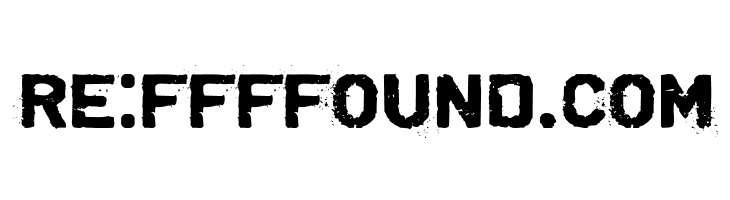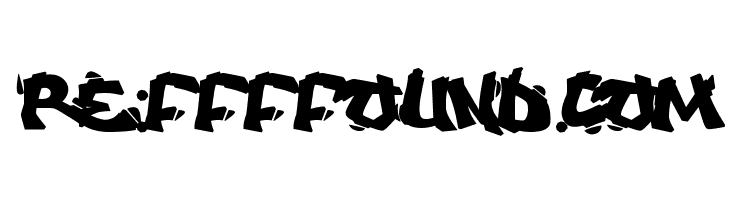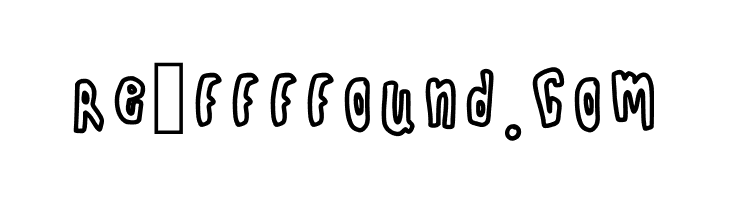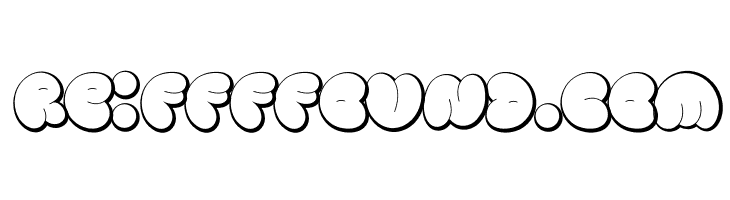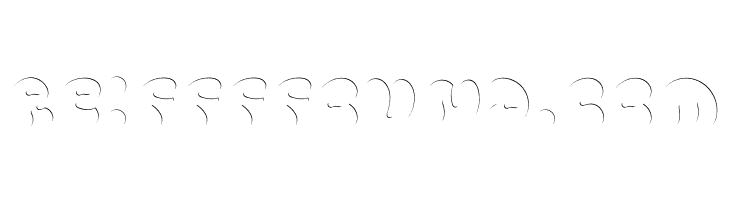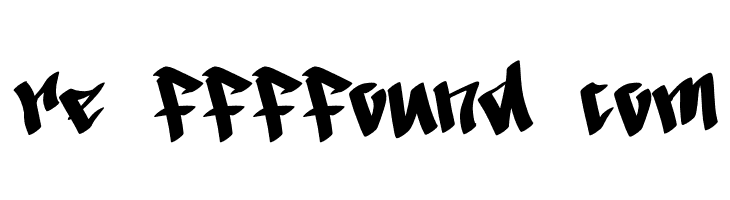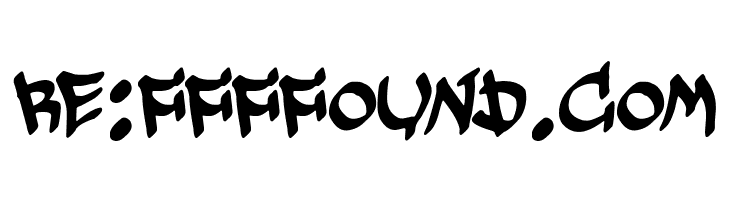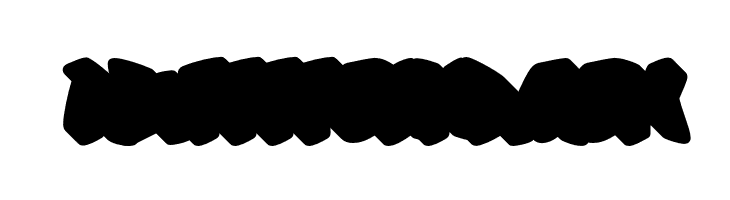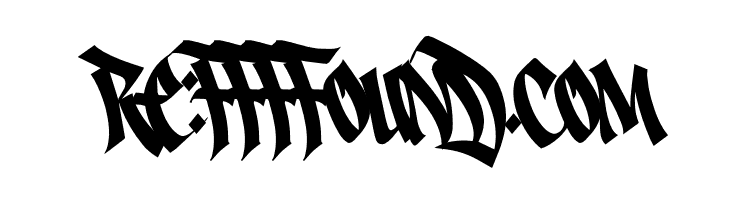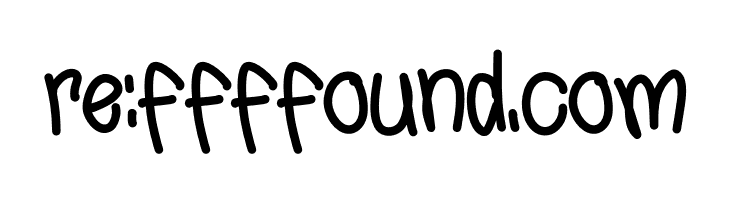
A bold, graffiti-inspired font with dynamic strokes and sharp angles.
A bold, graffiti-style font with dynamic shapes and a three-dimensional effect.
A bold, graffiti-inspired font with a playful, hand-drawn style.
A bold, graffiti-inspired font with a playful, inflated appearance and shadow effect.
A graffiti-inspired font with bold, rounded forms and an inner outline effect.
Bold graffiti-style font with sharp angles.
Graffiti-inspired, bold and dynamic font.
Bold, extruded graffiti-style font with a 3D effect.
Bold, graffiti-inspired script with sharp angles and heavy slant.
Expressive graffiti-style handwritten font with bold, playful strokes.
A bold, graffiti-inspired font with dynamic and energetic strokes.
A graffiti-inspired font with bold, dynamic characters and playful arrow elements.
A bold, graffiti-inspired font with an urban, edgy style.
An edgy, punk-inspired font with sharp angles and whimsical embellishments.
A bold, graffiti-inspired font with dynamic strokes and sharp angles.
A bold, angular font with a graffiti-inspired, edgy design.
A bold, graffiti-inspired font with an urban, artistic style.